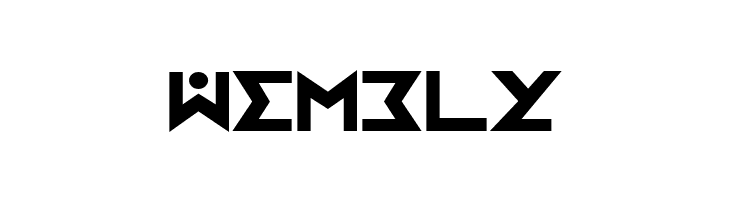
Superfly 2001 Heavy Font
- Font: Superfly 2001 Heavy
- Weight: Heavy
A bold, geometric font with sharp angles and circular cutouts, offering a futuristic and edgy look.